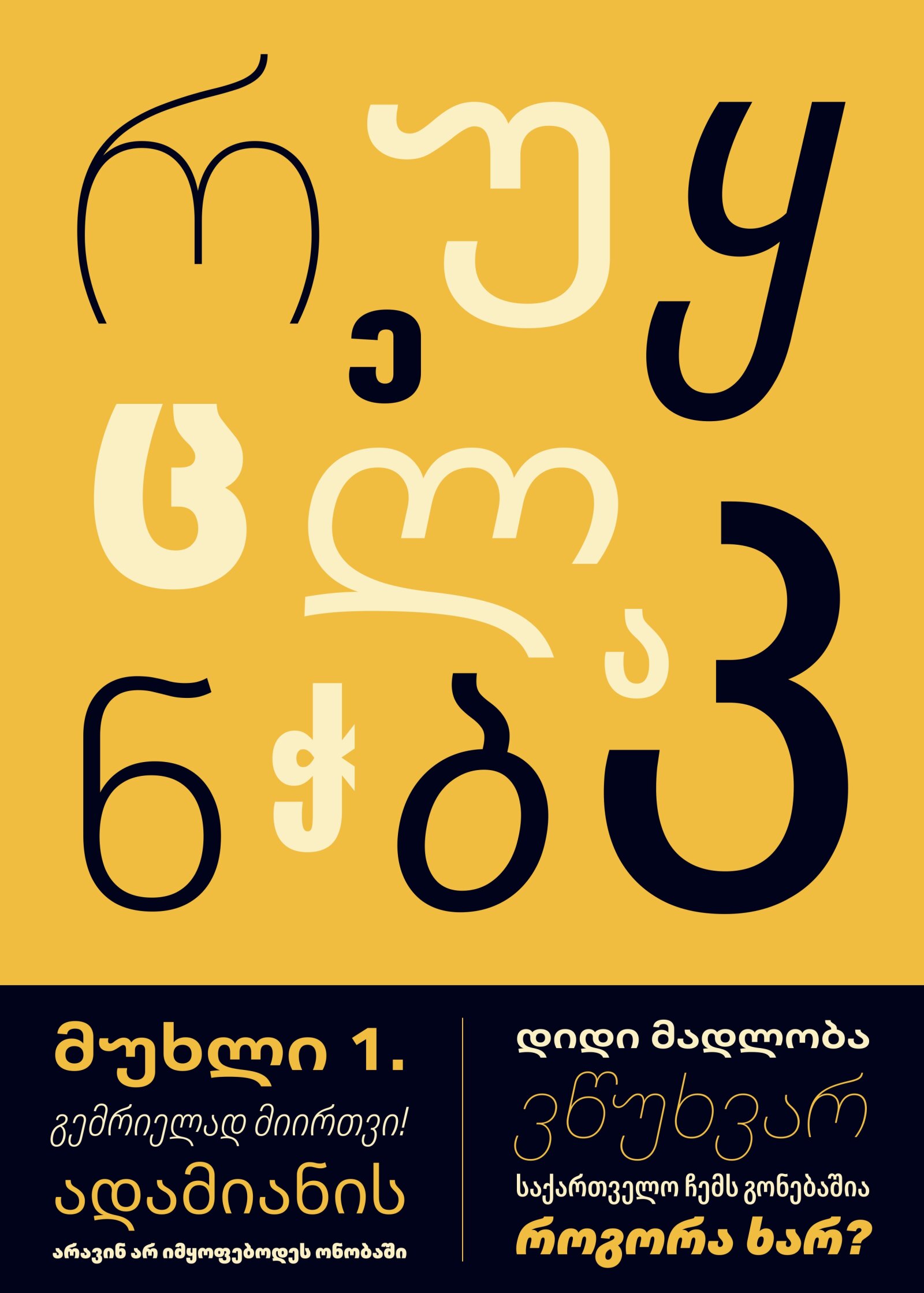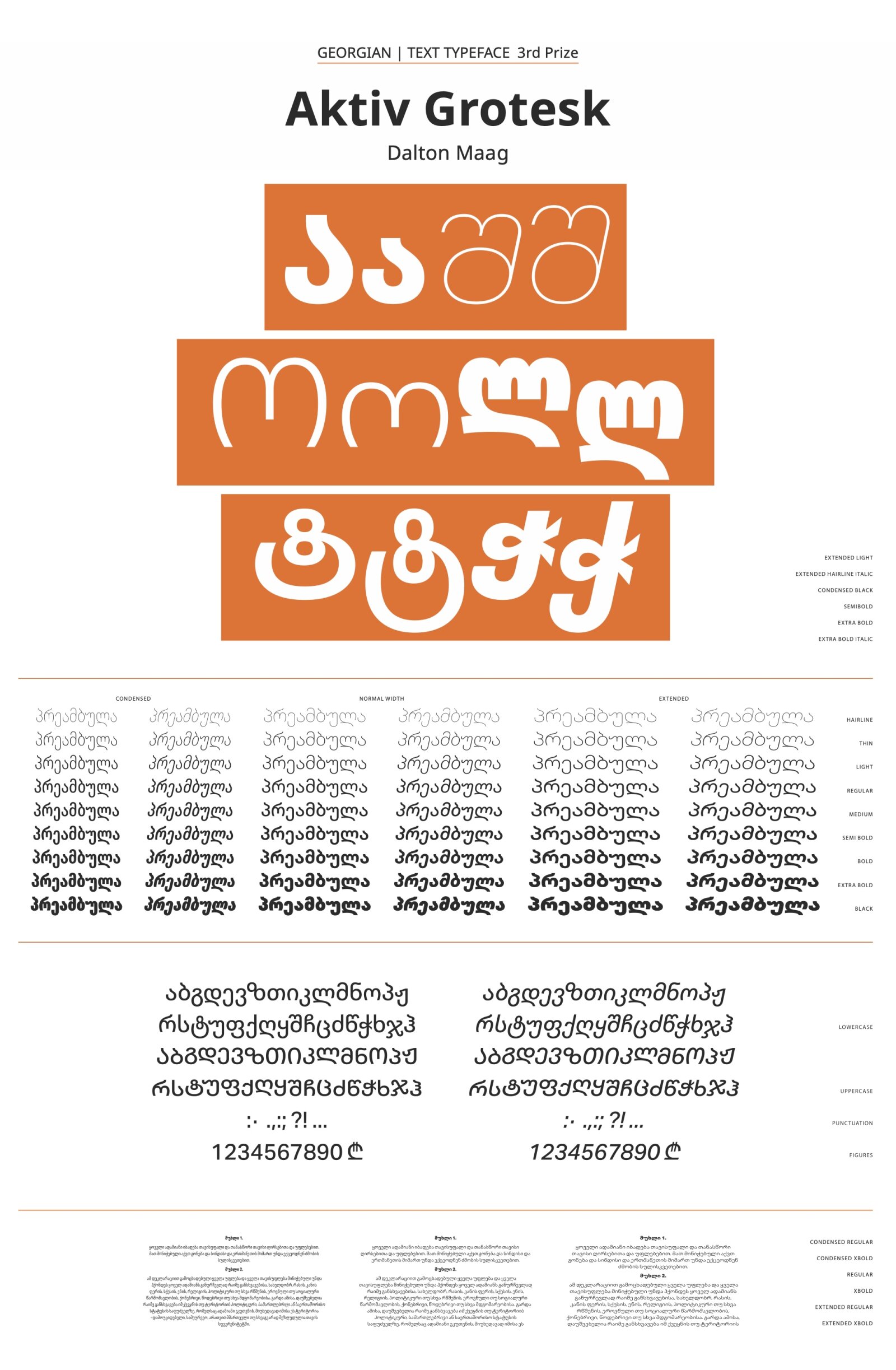
This typeface combines versatility and functionality. It’s a grotesque sans typeface with Weight, Width, and Italic variable font axes, support for ten global writing systems, and an extensive icon set. The weight axis spans from Hair to Black and the width one from Condensed to Extended. The Italic axis is binary. Its design is meant to be sober and utilitarian with a few unexpected twists.